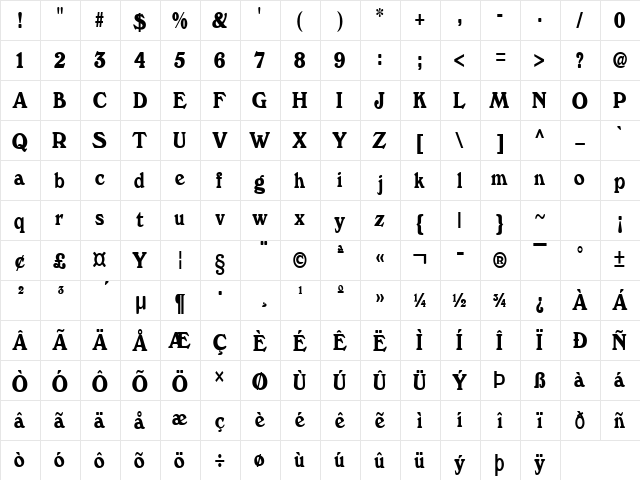
DictionaryCondensed Normal
Design Context for DictionaryCondensed Typeface
DictionaryCondensed offers clean, dependable letterforms without strong stylistic allegiance, making it a practical choice for designers who need flexibility. Its narrow stance lets it pack a punch even in space-constrained designs.